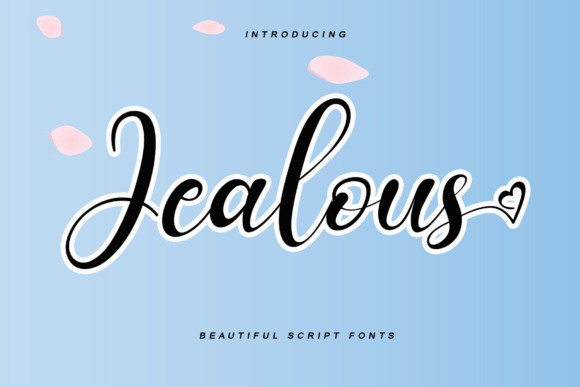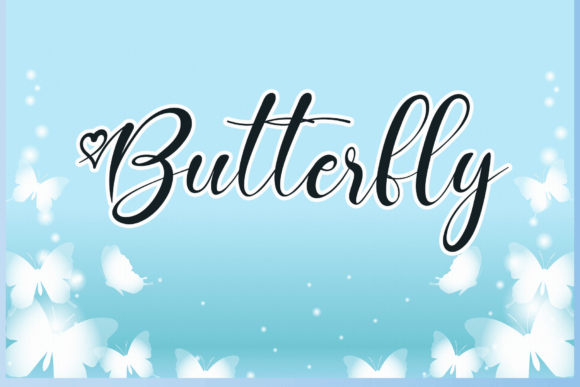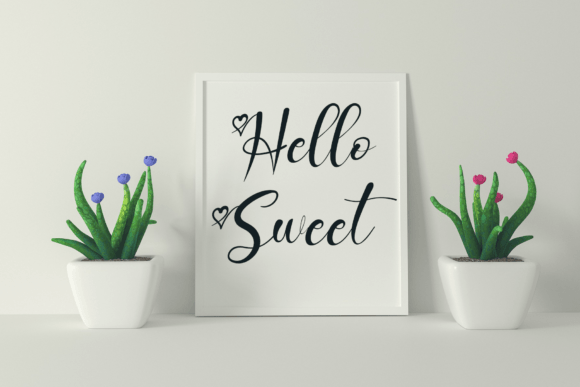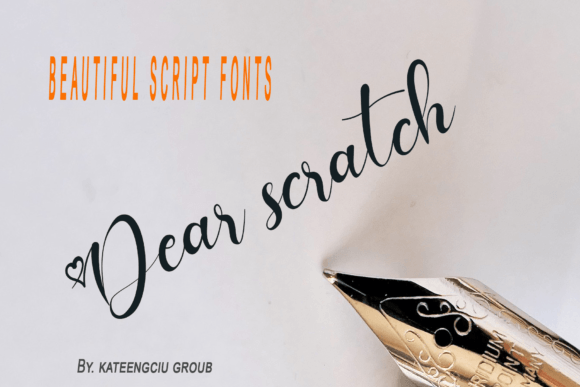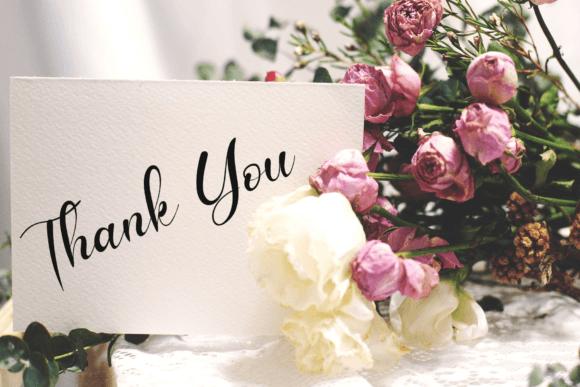
Jealous Font
About Jealous Font
Jealous is a sophisticated and fancy handwritten font that stands out with its bold contrast strokes and playful characters, adding a touch of flair to your creative projects. Crafted to enhance your creativity, Jealous is a versatile font that excels in various design applications, making it perfect for logo design, social media graphics, movie titles, book titles, and more. With Jealous font, you have the power to create stunning and impactful work.
The bold contrast strokes of Jealous bring a dynamic and eye-catching element to your designs. This feature is particularly advantageous in logo design, where the font can create a strong and memorable visual identity. The bold strokes contribute to a sense of confidence and modernity, ensuring that your logos leave a lasting impression.
The playful characters of Jealous inject a sense of fun and creativity into your designs, making it an ideal choice for social media graphics. Whether you’re crafting engaging posts or creating attention-grabbing banners, the font’s lively and expressive nature adds personality to your content, fostering a connection with your audience.
In the realm of movie and book titles, Jealous continues to shine. Its fancy and sophisticated style can enhance the visual appeal of titles, creating a sense of intrigue and sophistication. The font brings a unique and artistic touch that elevates the overall aesthetic of promotional materials, capturing the essence of the content it represents.
Moreover, Jealous is crafted to make stunning work achievable across various design projects. Its versatility ensures that it complements a wide range of creative endeavors, allowing you to experiment with different applications and contexts. Whether you’re working on print materials or digital graphics, Jealous adds a distinctive and elegant quality to your designs.
In summary, Jealous is not just a font; it’s a creative tool that empowers you to make stunning and memorable work. Its bold contrast strokes, playful characters, and fancy style make it a standout choice for logo design, social media graphics, movie titles, book titles, and beyond. With Jealous font, your creative projects are sure to capture attention and leave a lasting impression.